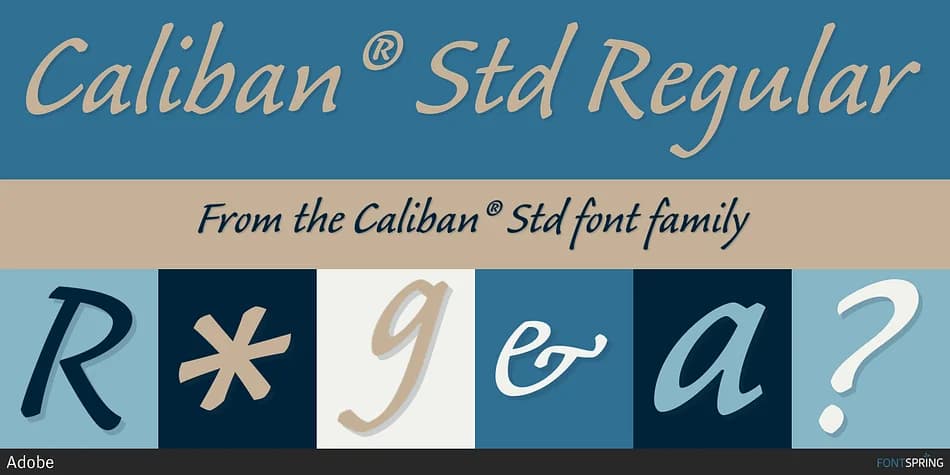
About Caliban® Std Font
- Eye-catching, Bold
Caliban® Std Font is a display font that shines as a display or heading face. Pair it with a clean sans-serif or serif font for body text — the contrast creates a clear hierarchy while the two styles stay balanced and easy to read.
Caliban® Std Font
by Adobe
Caliban® Std Font is a display typeface by Adobe, ideal for logos, invitations, branding, and creative projects.